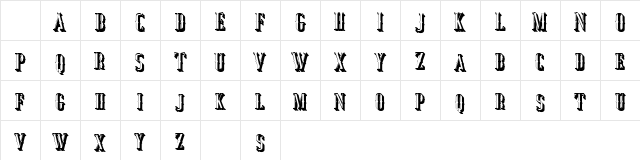
Complete Jocker Free Extrude Right Regular glyph index. Displaying only characters natively supported by Jocker Free Extrude Right Regular font.
Jocker Free Extrude Right is a composed and adaptable typeface that performs quietly and consistently across a wide range of design contexts.